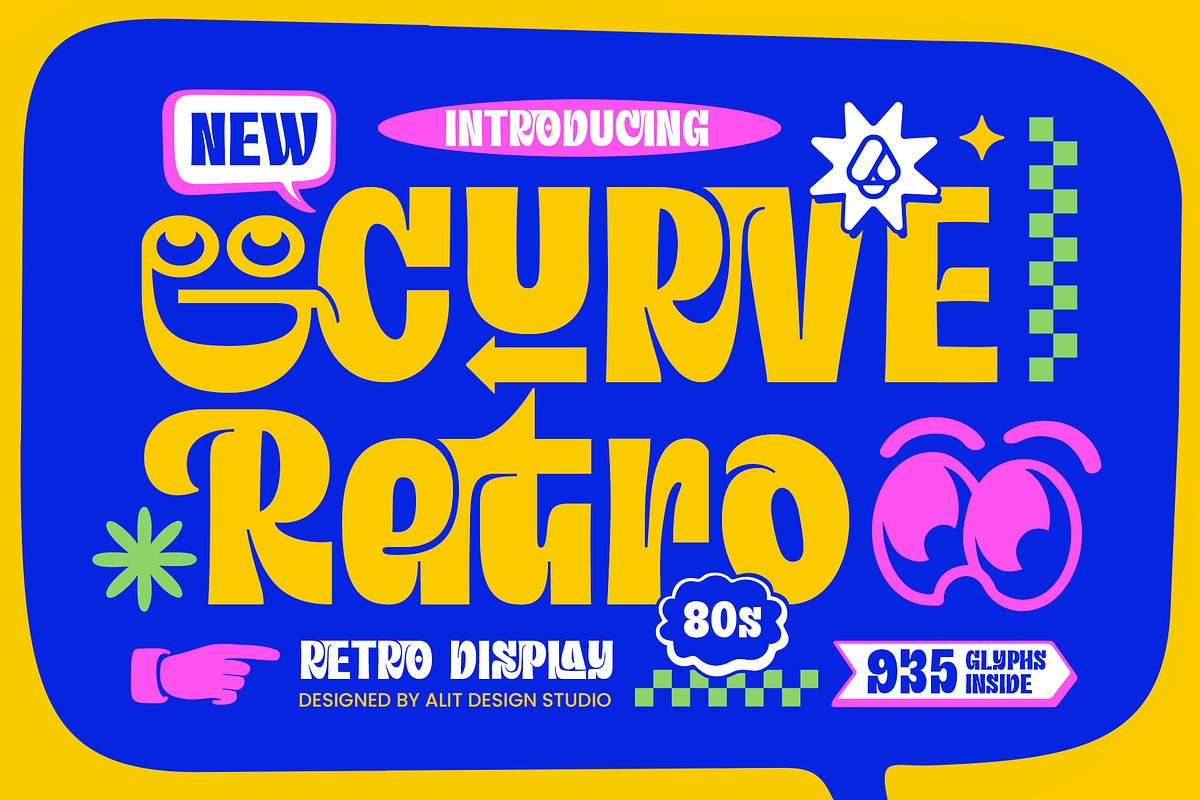
Curve Retro Font
Curve Retro Font brings a balanced structure and contemporary look, making it suitable for both digital and print design. Curve Retro, a bold and playful display font that brings the electric energy of the 80s and 90s straight into your design toolkit. With its chubby curves, funky rhythm, and psychedelic vibes, this font is a time machine to an era of bright colors, disco nights, and cassette tapes.
Designed for those who aren’t afraid to stand out, Curve Retro isn’t just a typeface—it’s a complete design system. Whether you are creating a music festival poster, a streetwear brand logo, or a groovy social media campaign, this font packs the punch you need.